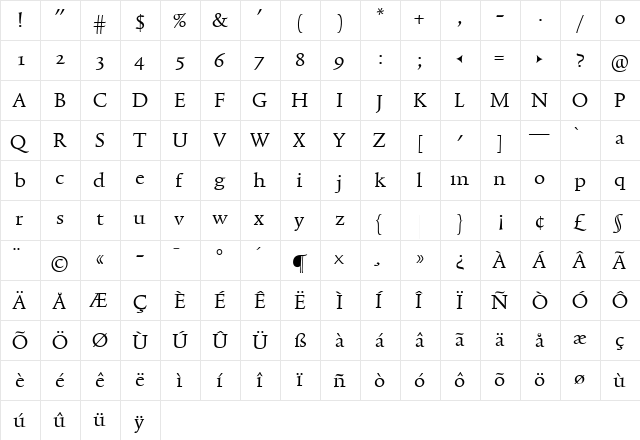
TriniteNo1 Roman
Design Context for TriniteNo1 Typeface
TriniteNo1 is a composed and adaptable typeface that performs quietly and consistently across a wide range of design contexts.